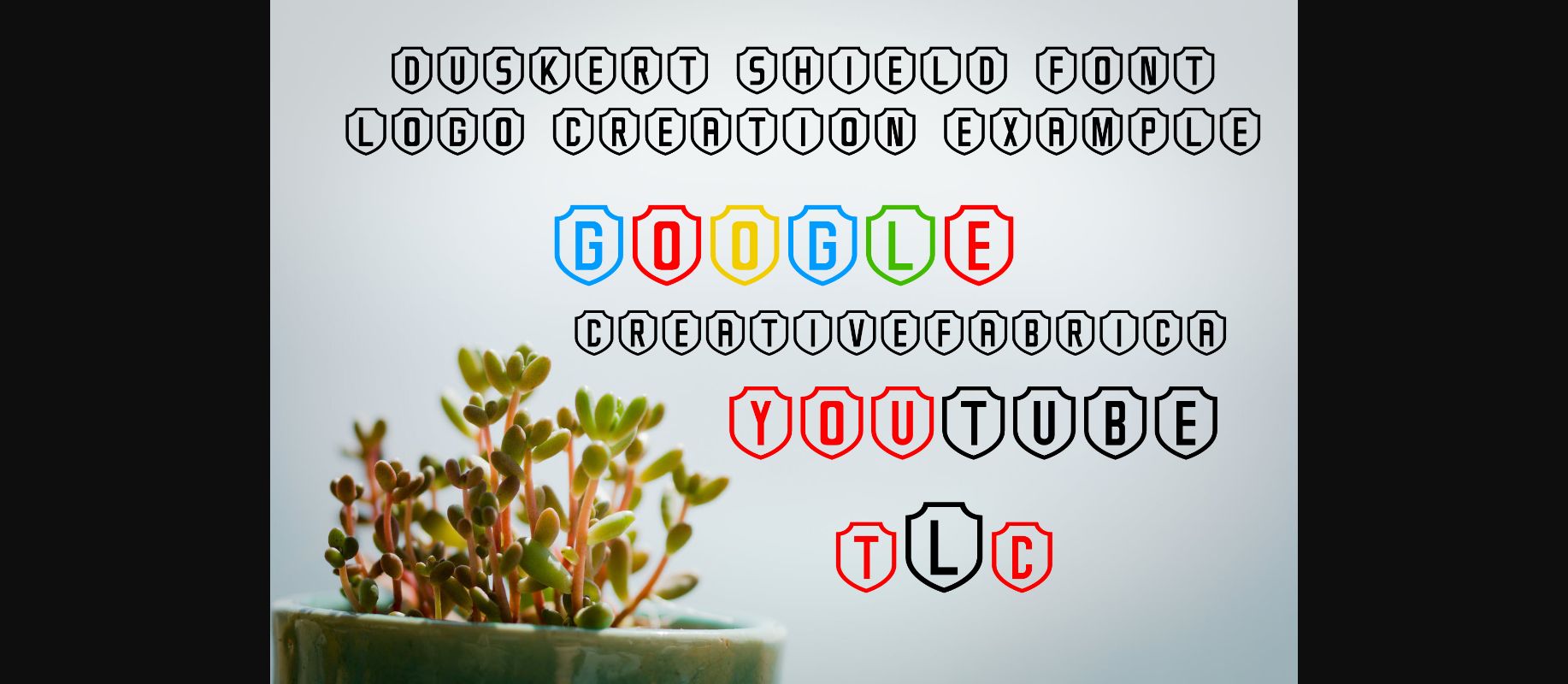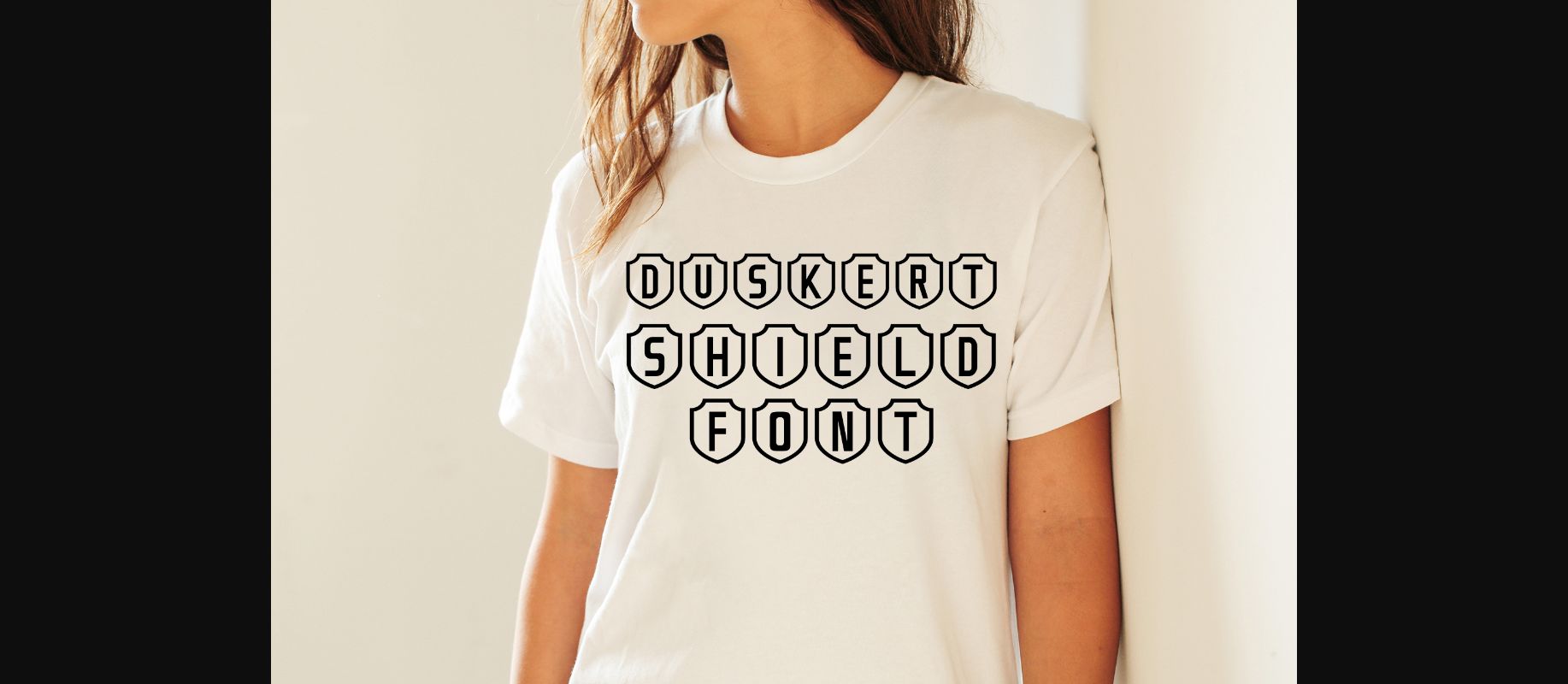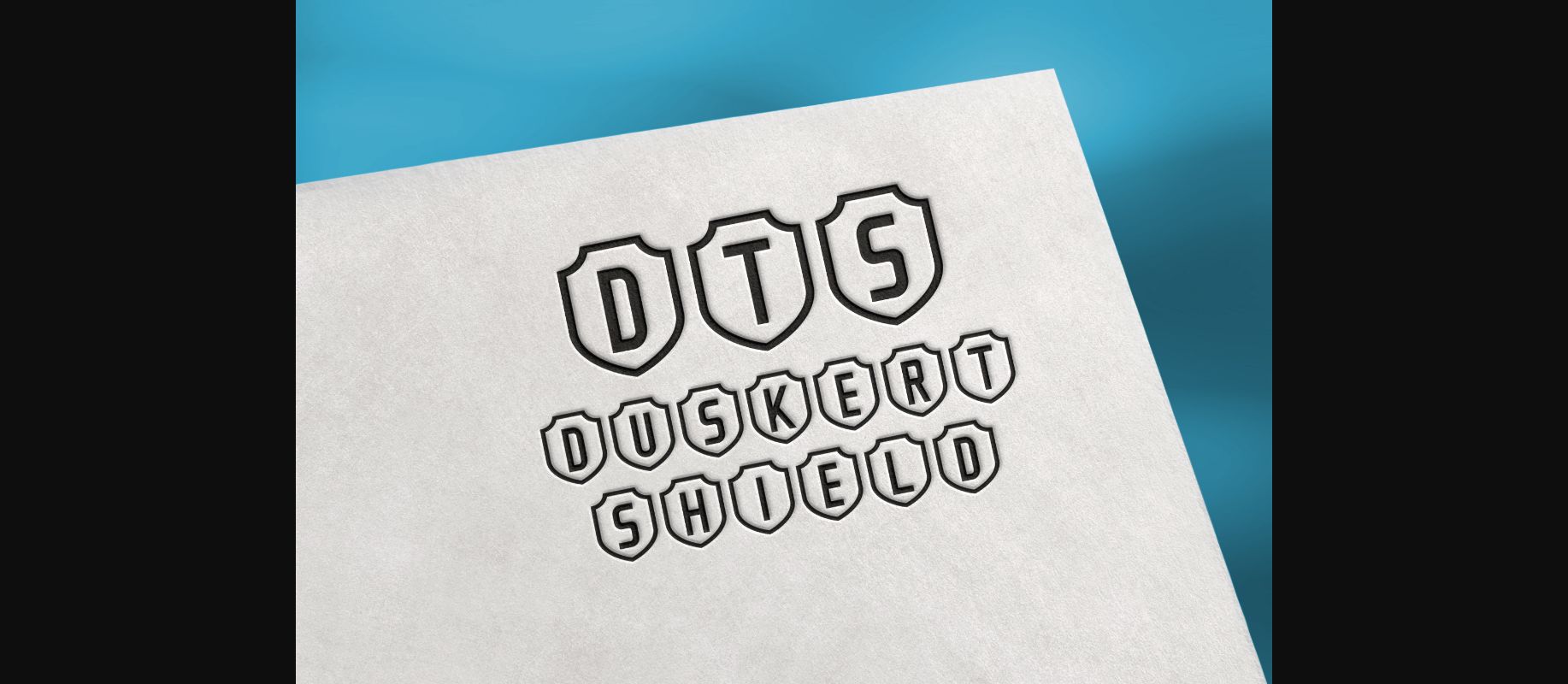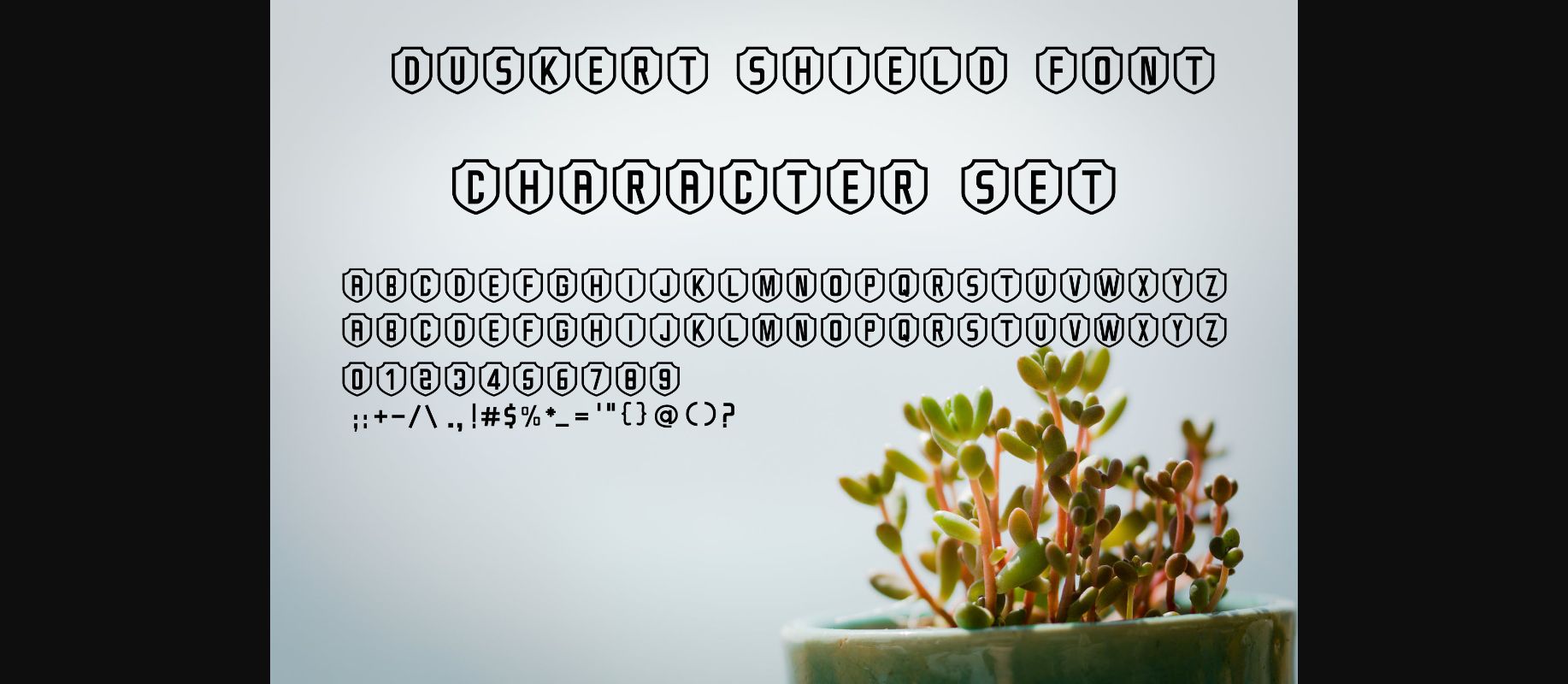
DuskerT Shield Font
About DuskerT Shield Font
DuskerT Shield is a cool, decorative font. It has a shield around every letter which will give your design that striking look you may be looking for. See the samples for the character set. You can use it for t-shirts, logos, posters, and much more!